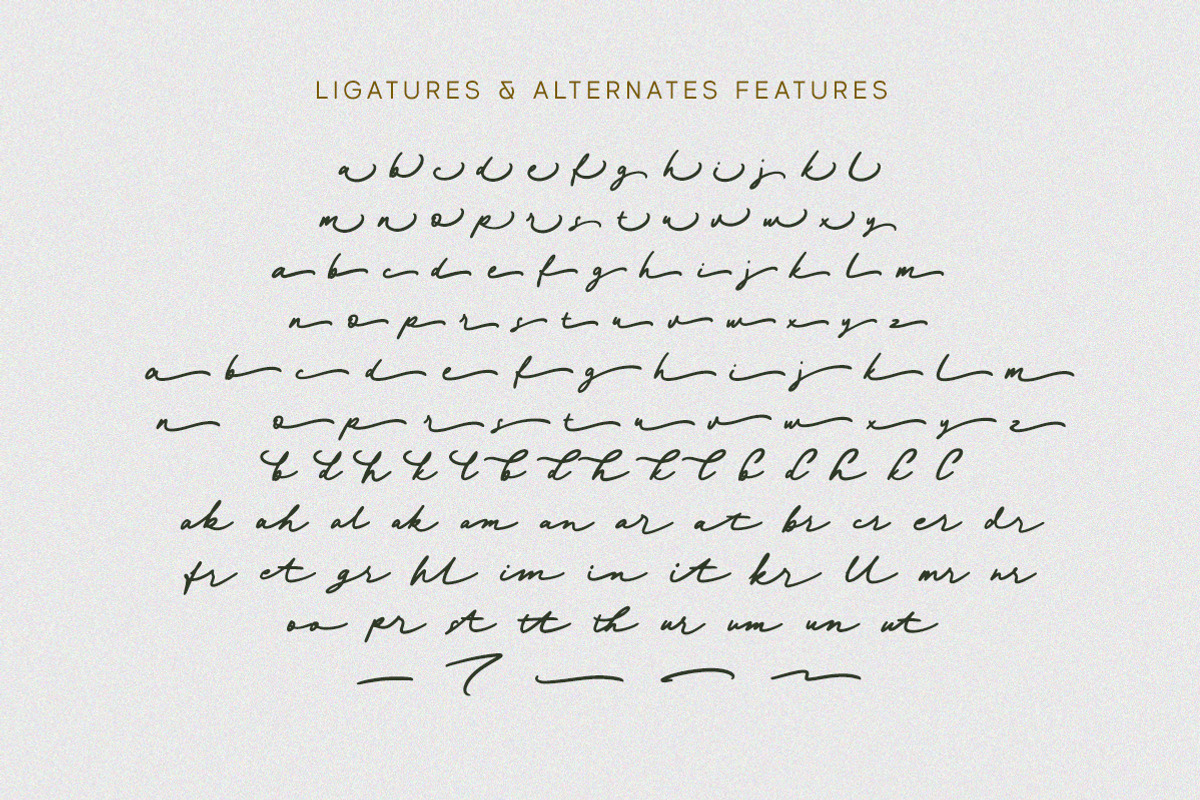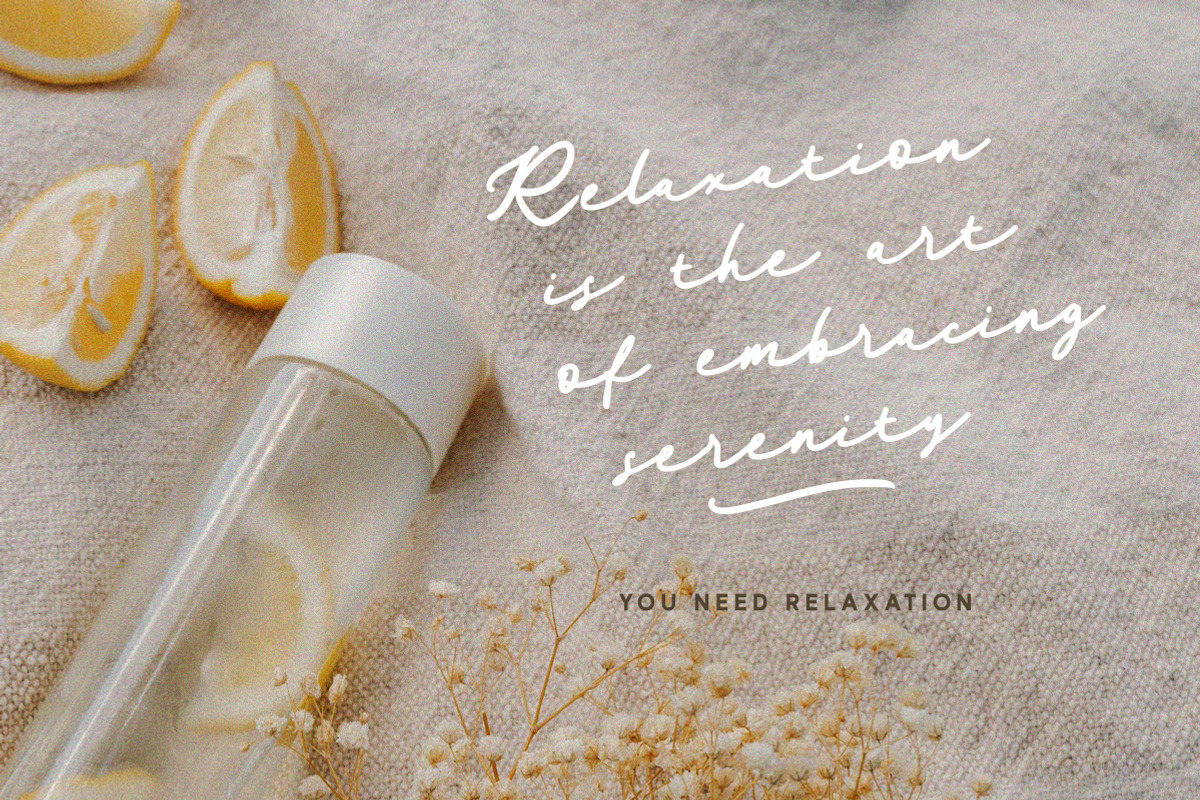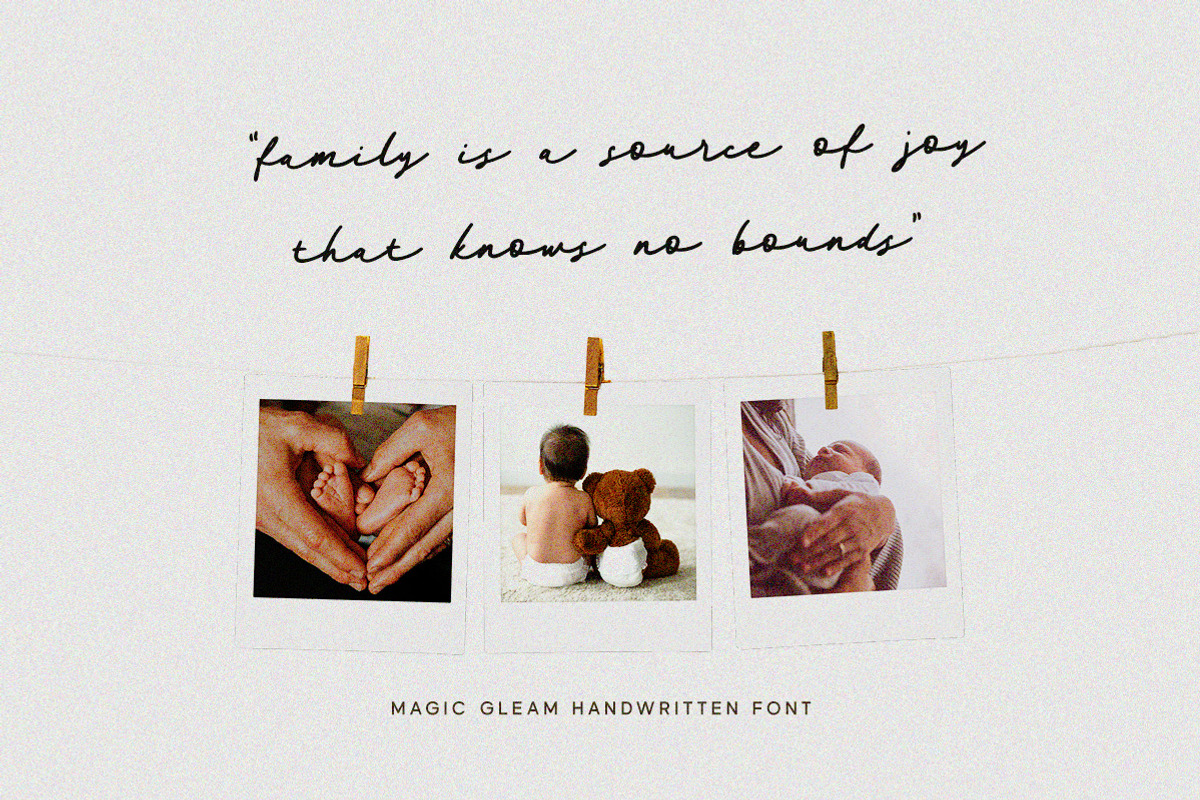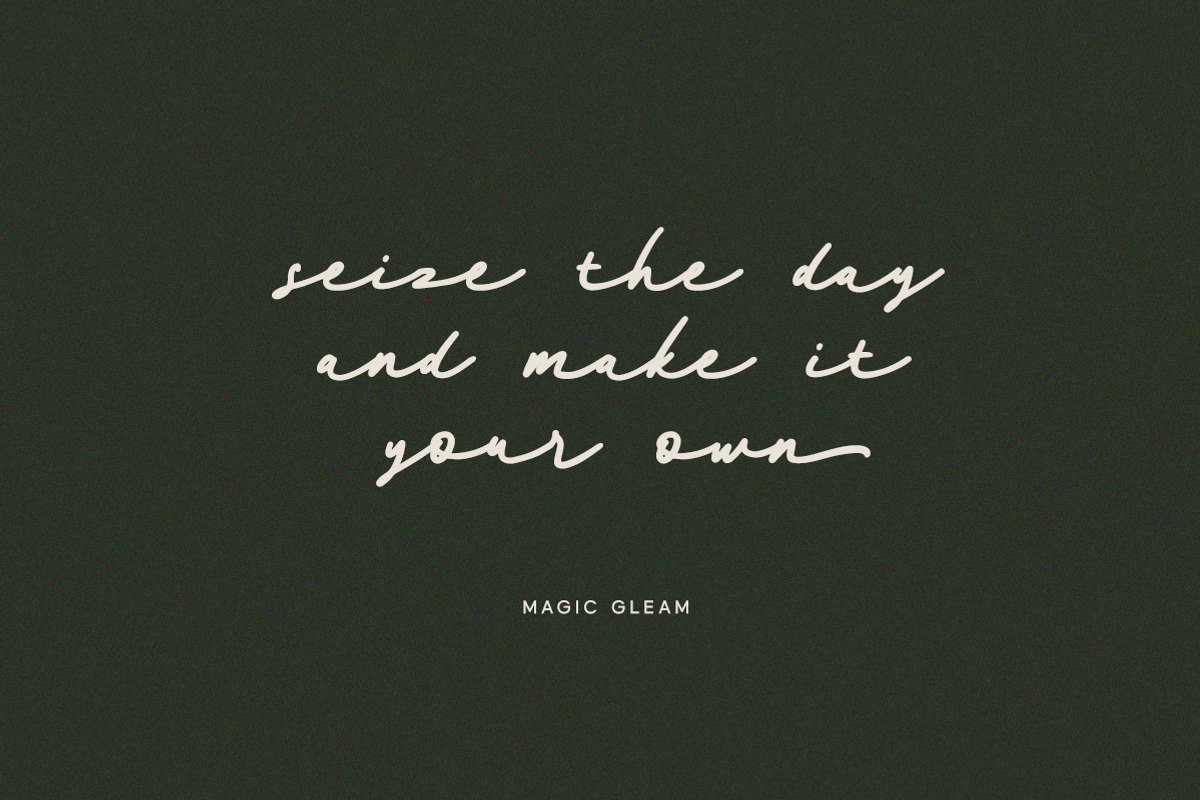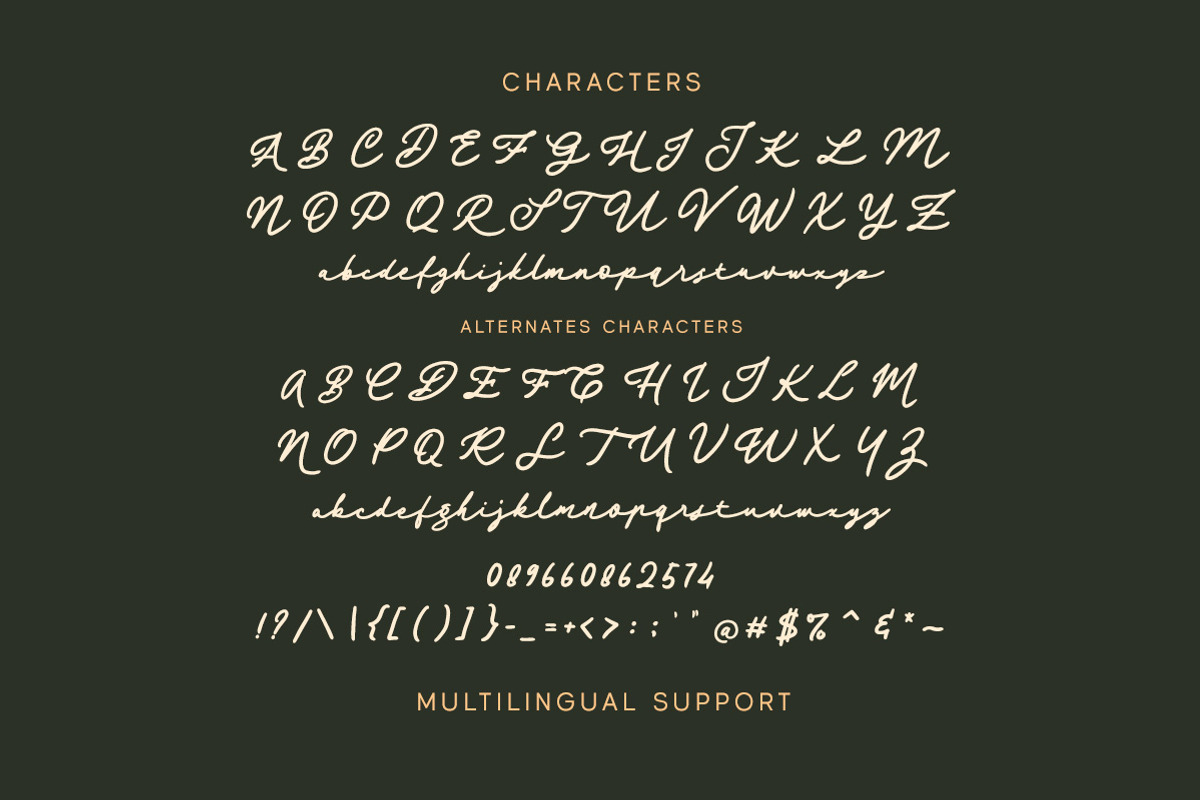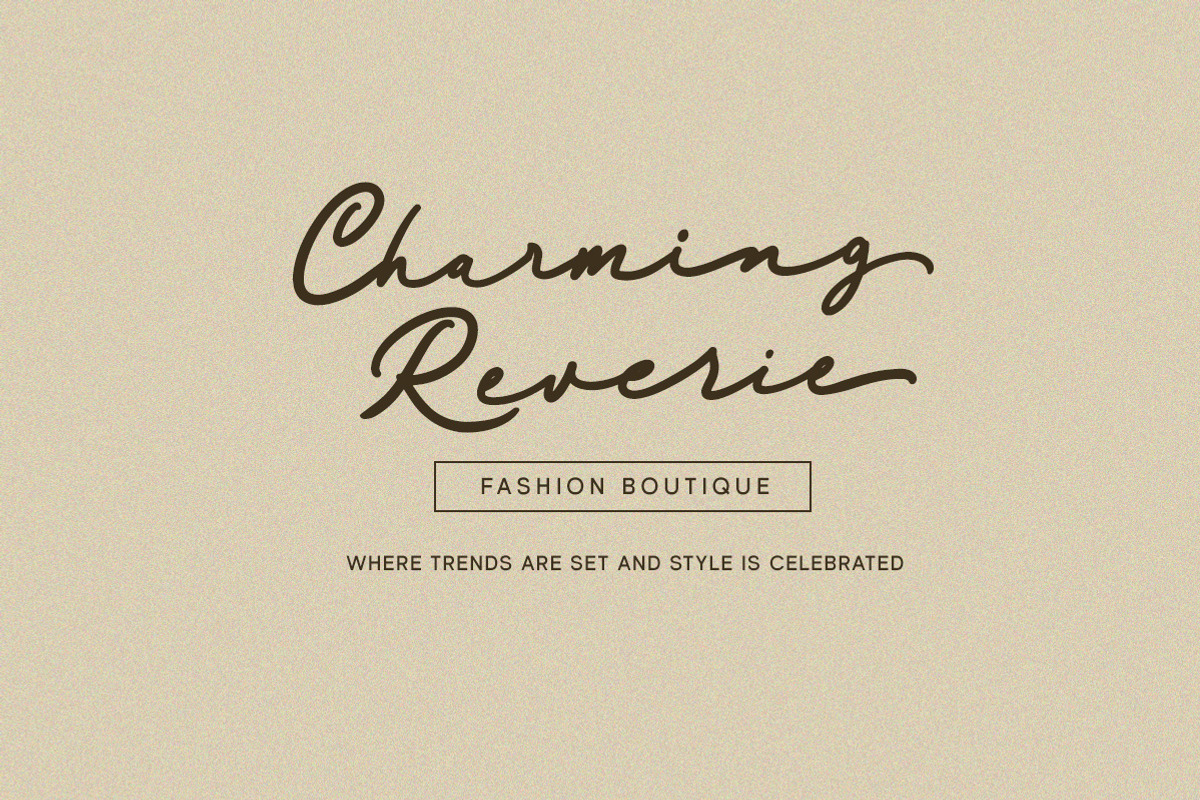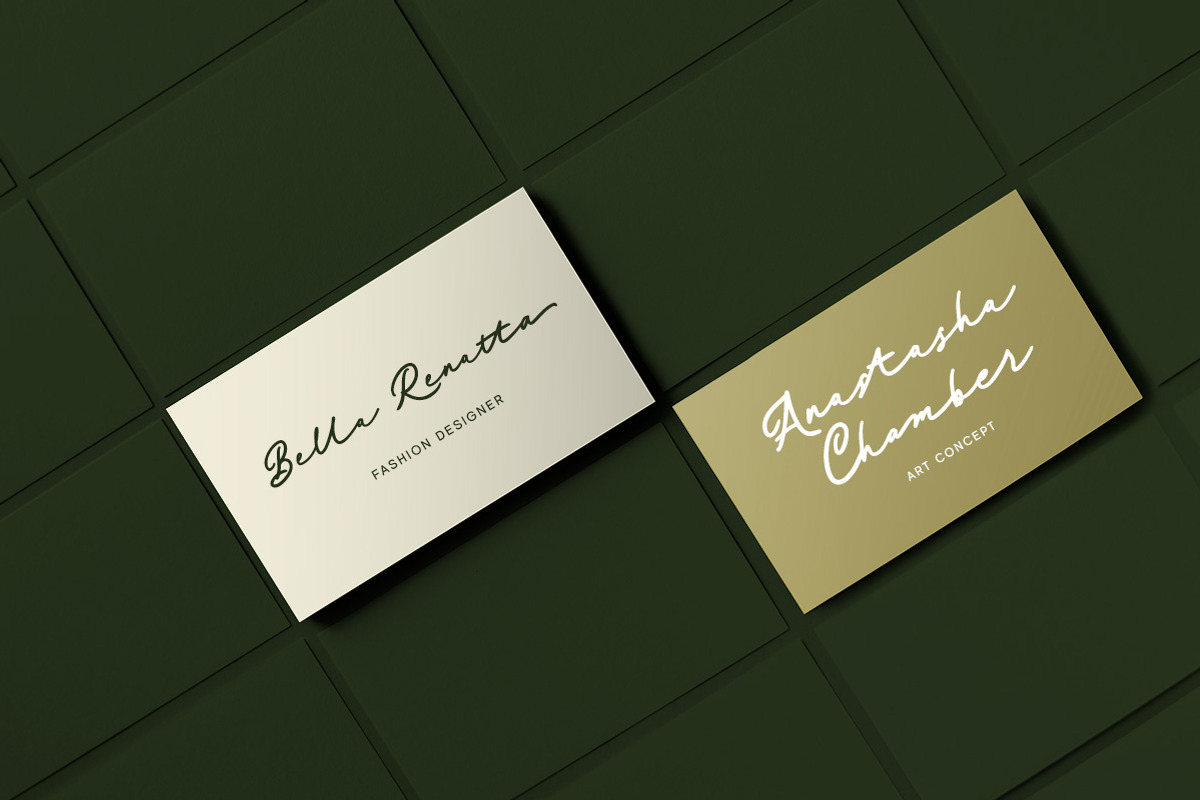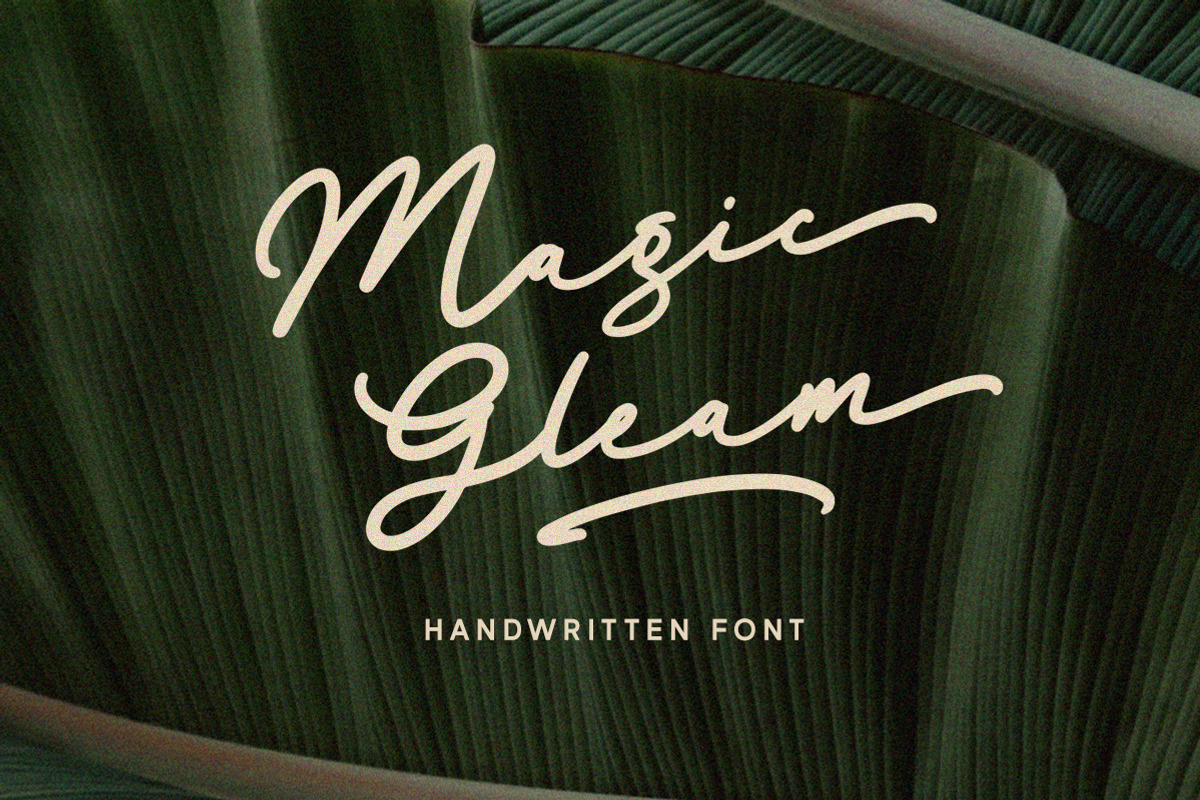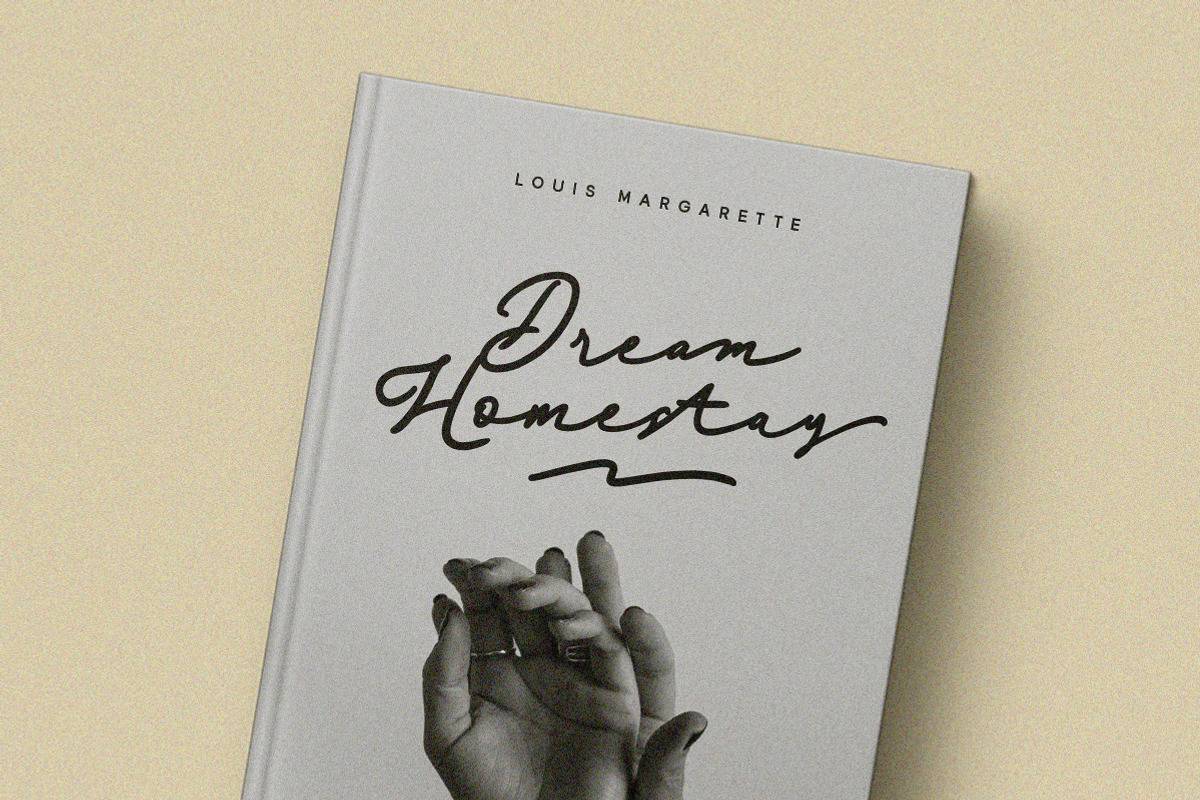
Magic Gleam - Script Handwritten
Introducing Magic Gleam, a charming script hand-written font that will add a touch of casual to your designs. This font has a charming vibes that makes it perfect for projects that require a friendly and approachable feel. The letters are slightly wider than usual, giving it a modern yet comfortable appearance.